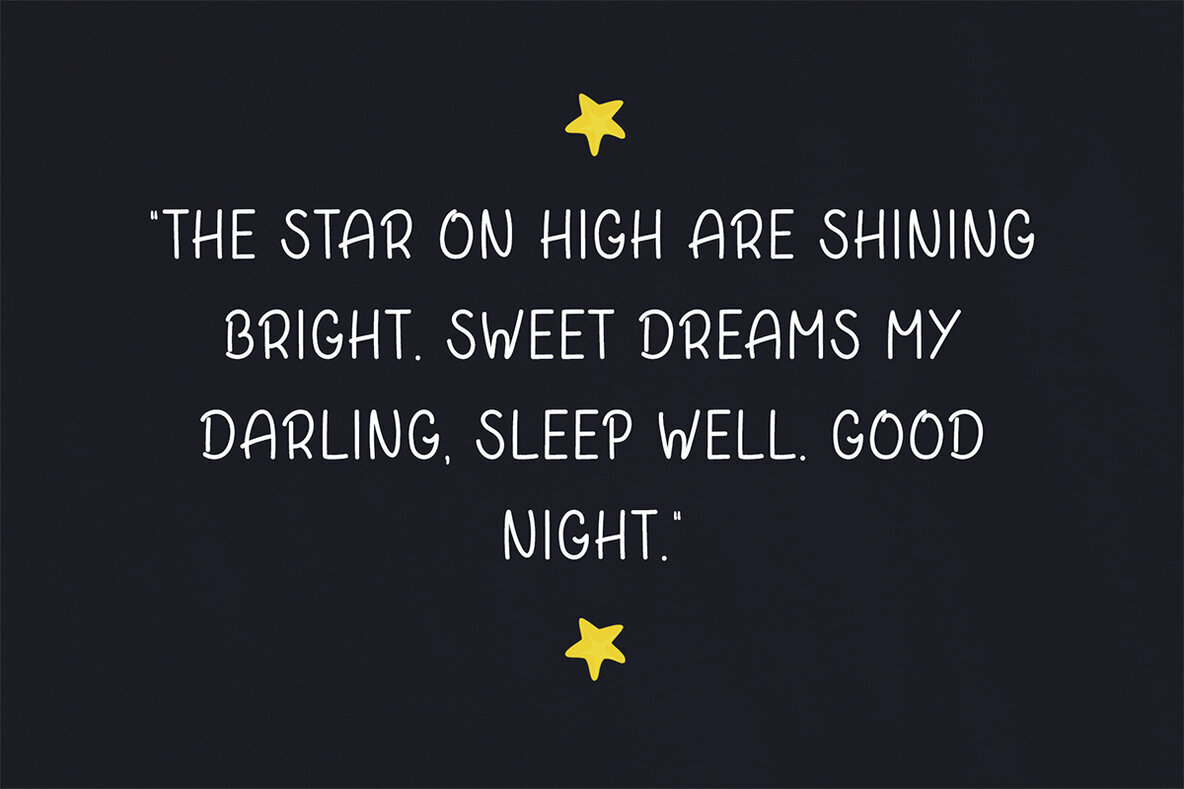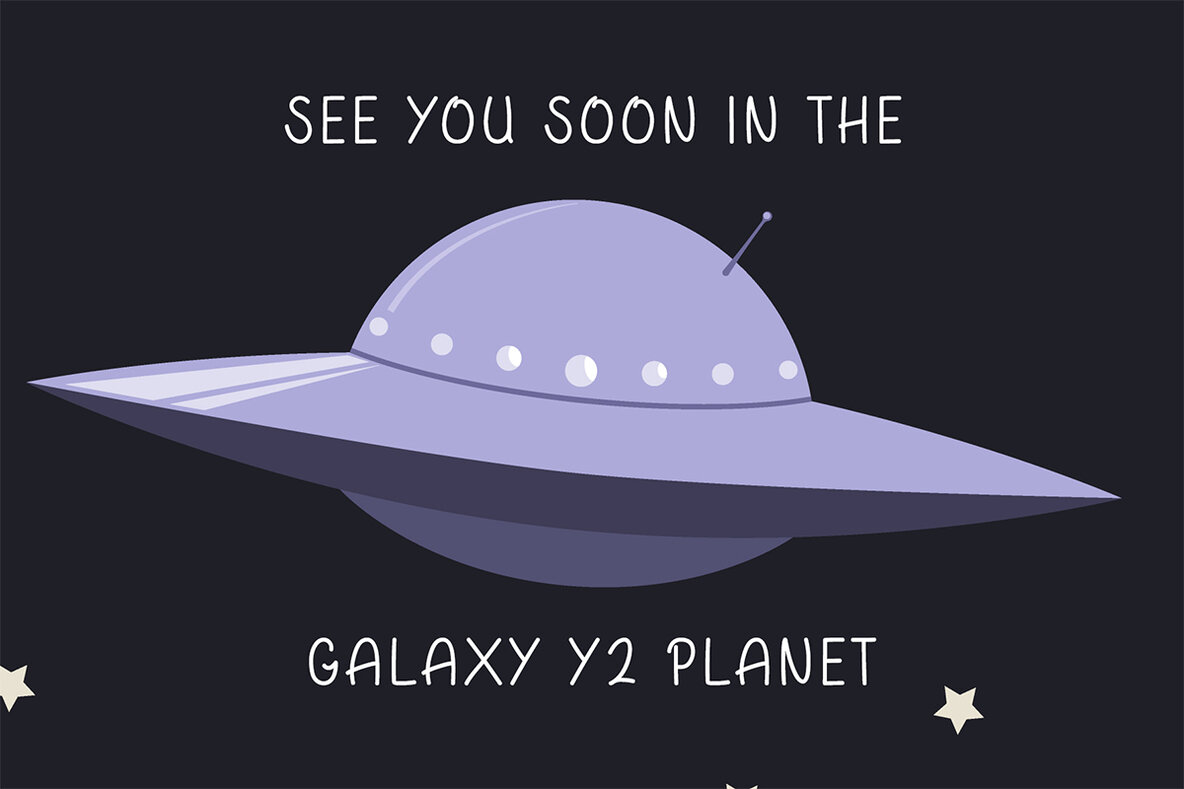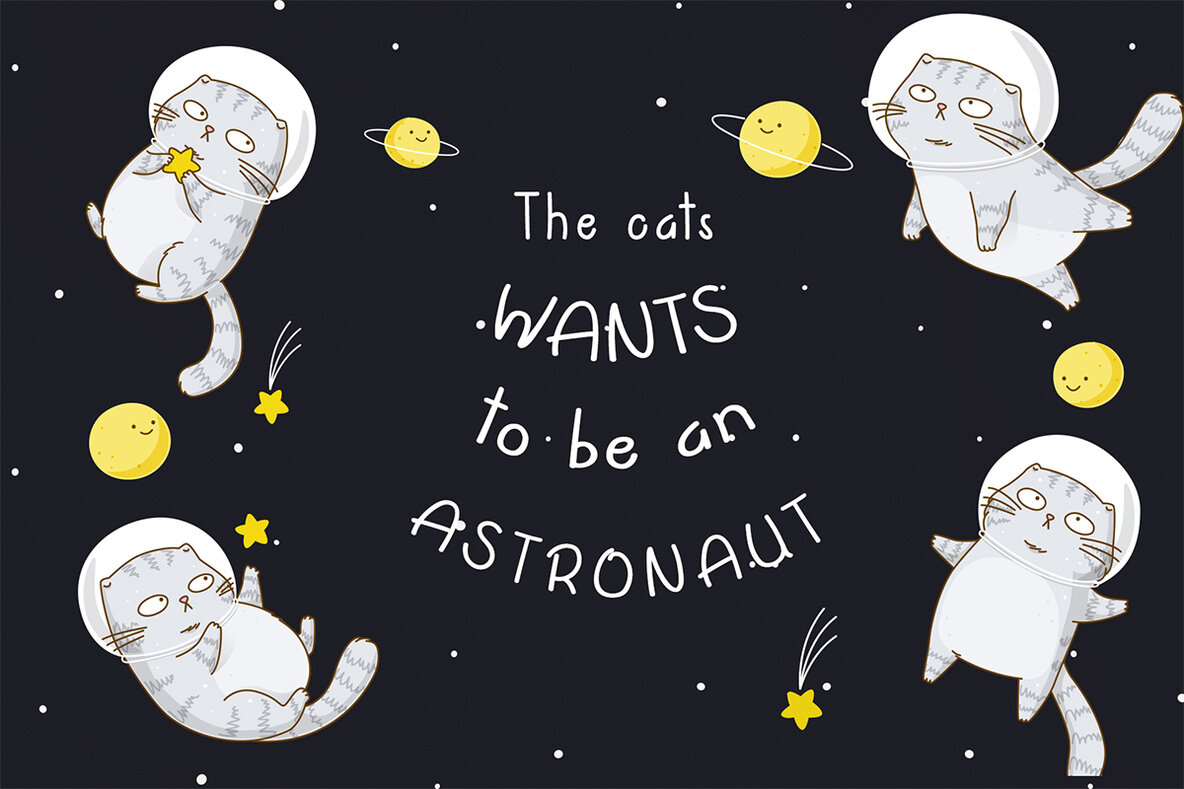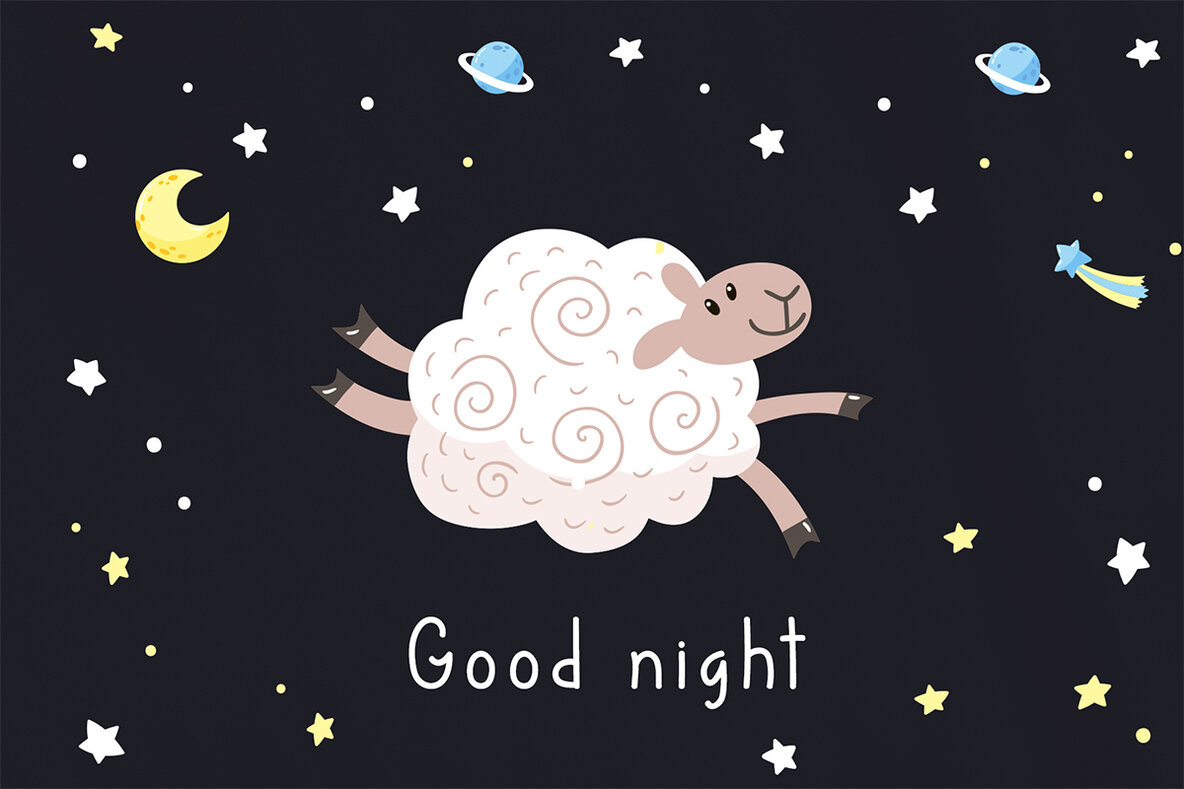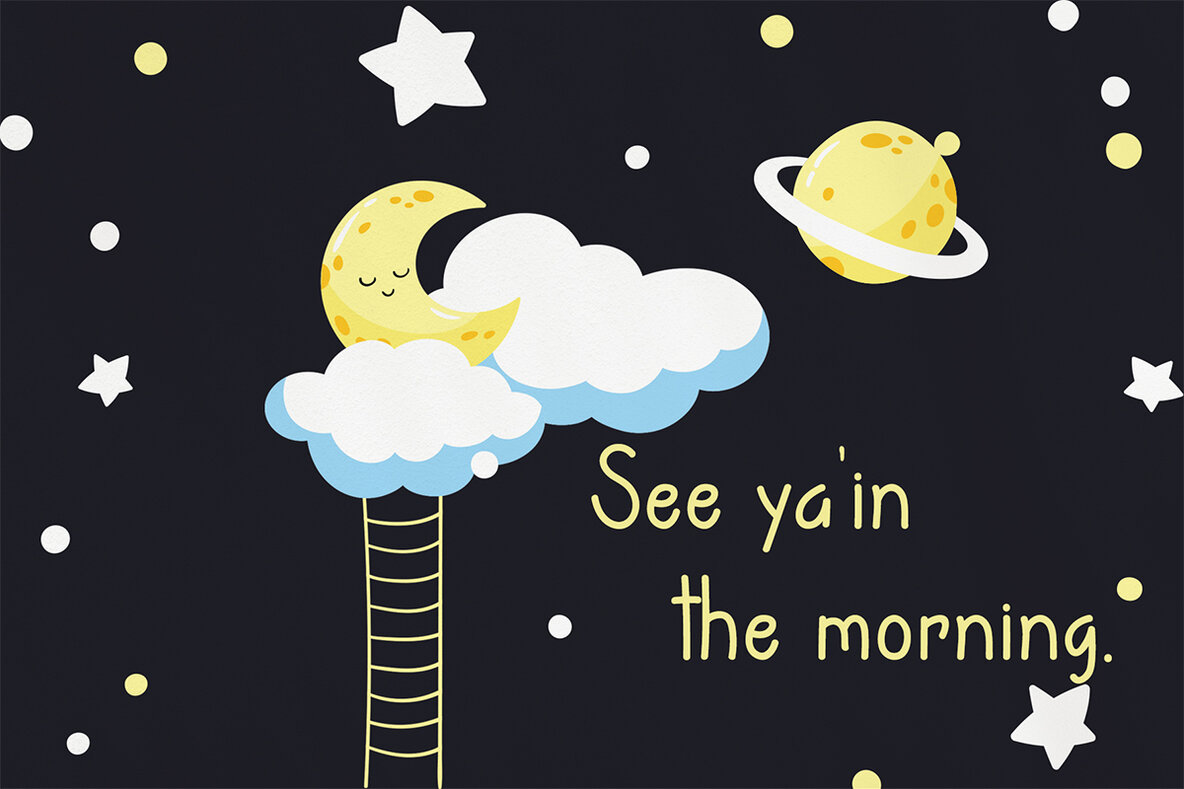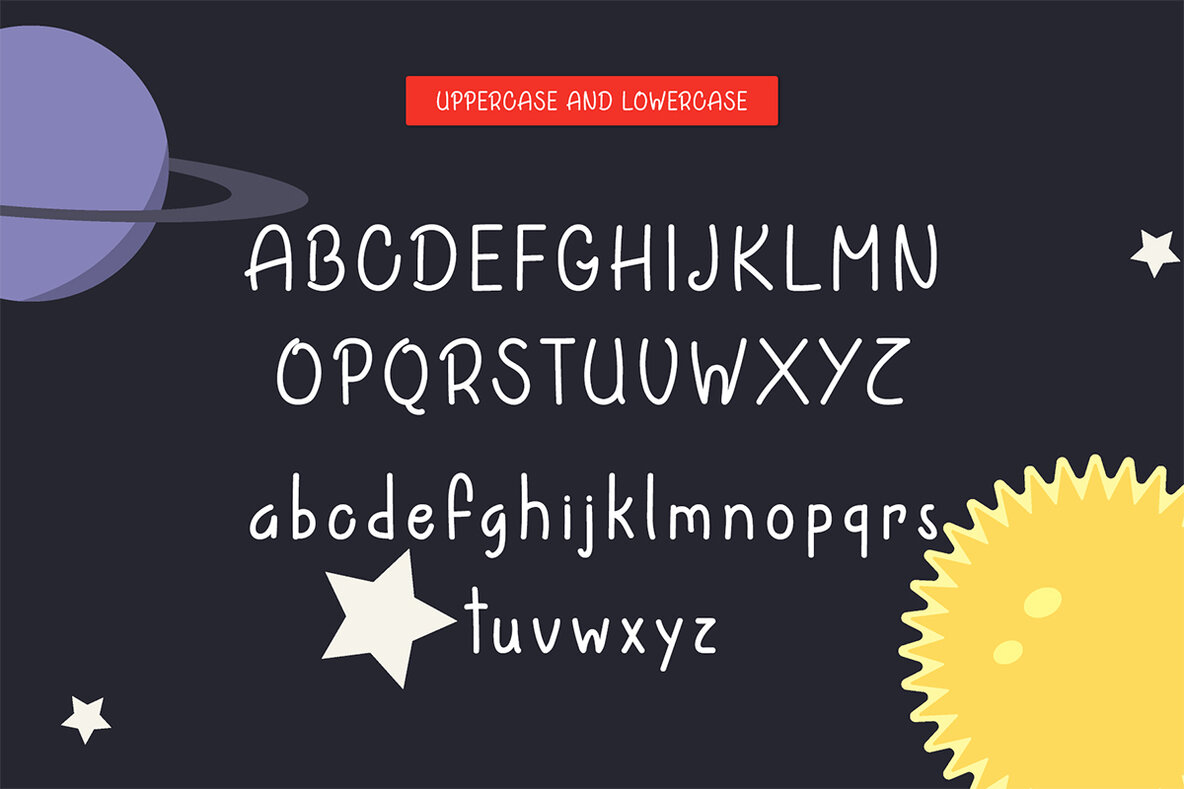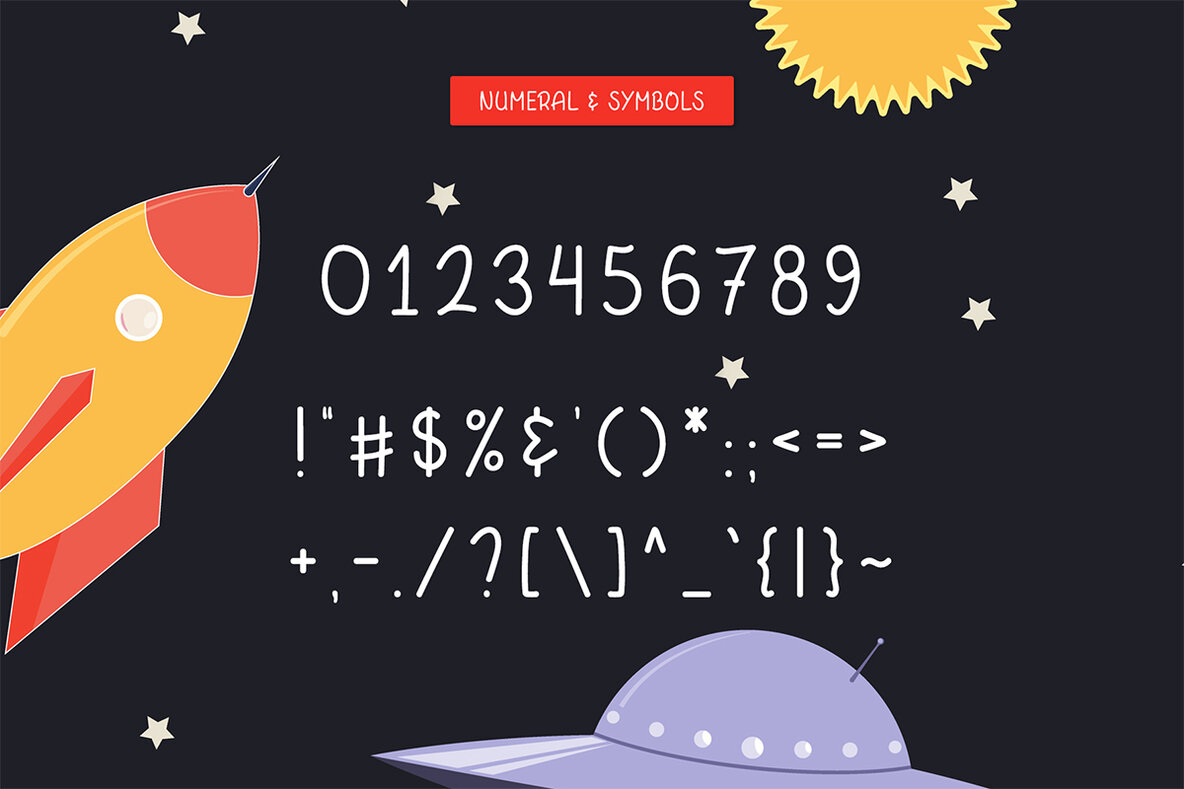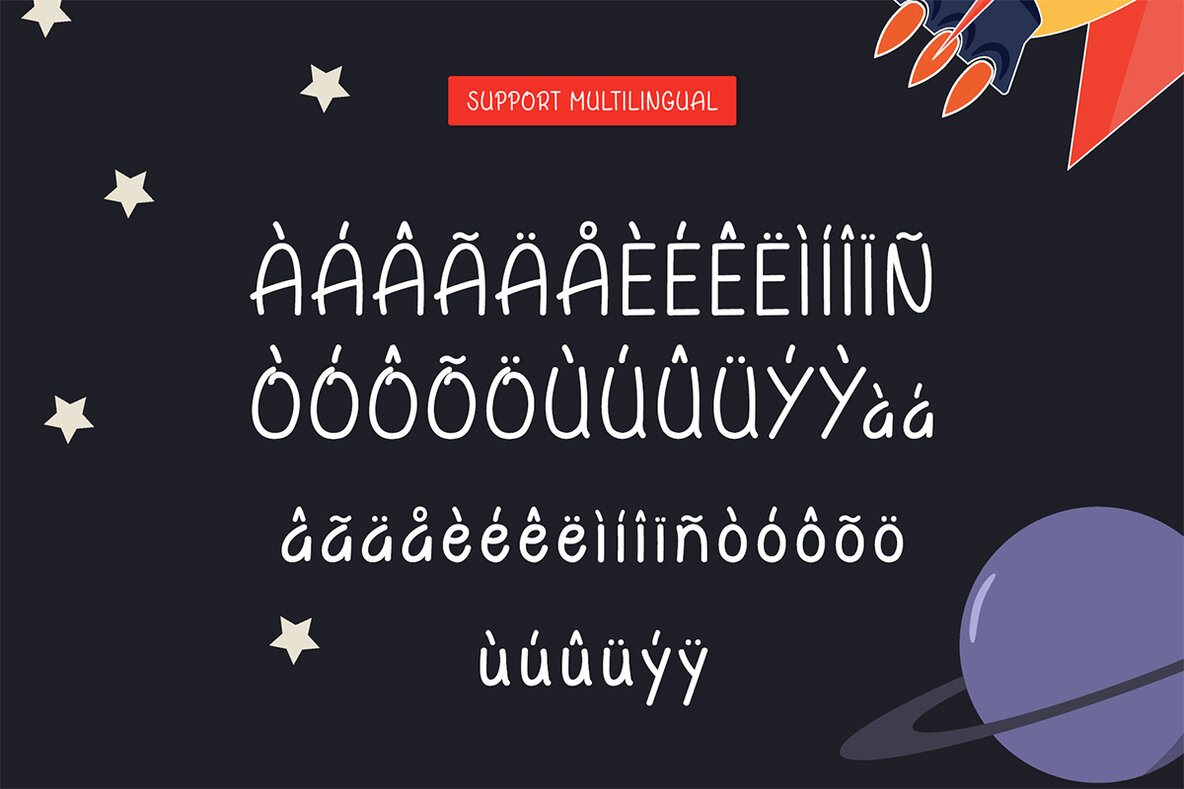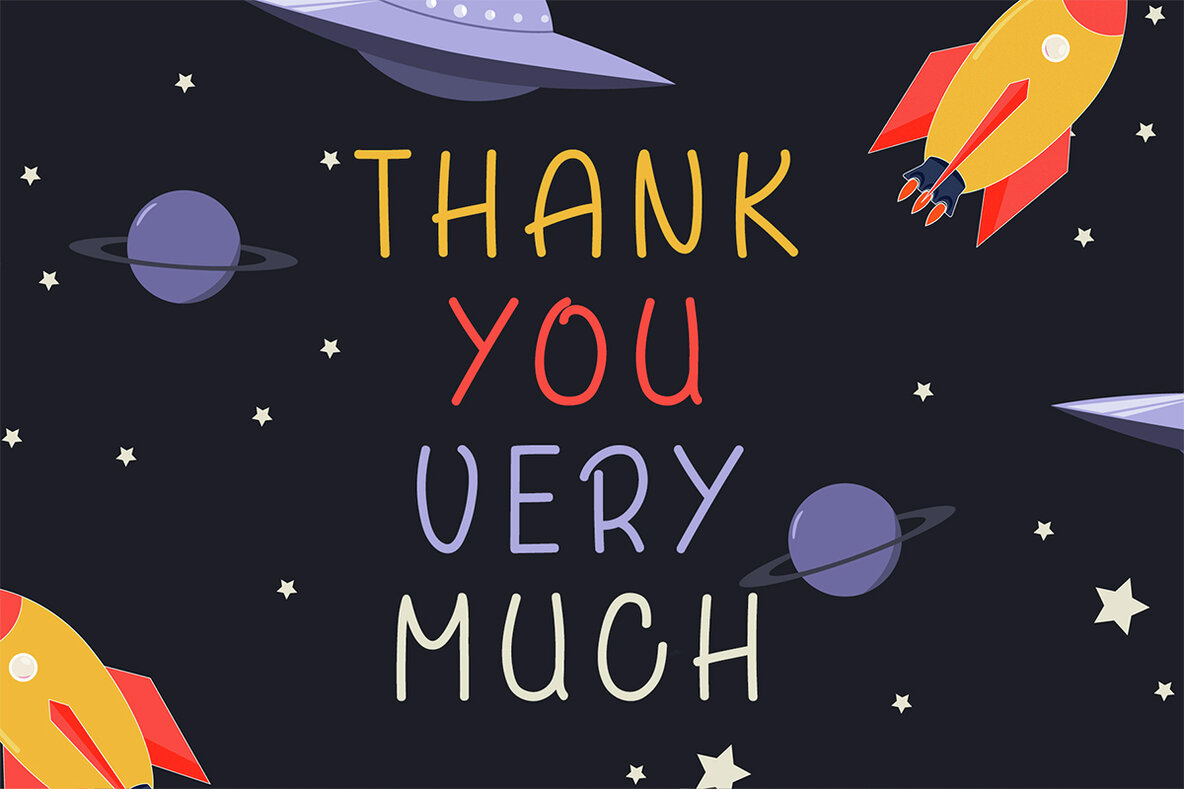
Vorrede Font
Vorrede Regular
Vorrede Handmade Font is a natural, flowing, and playful typeface perfect for infusing creativity into any project. With a comprehensive set of uppercase and lowercase letters, numbers, punctuation marks, and symbols, it supports multilingual characters, making it versatile for various tasks. Whether you're working on packaging, presentations, logos, headlines, lettering, posters, branding, quotes, titles, magazine headings, web layouts, advertising, invitations, comic artworks, or children’s party invites, Vorrede is designed to meet your needs.
This font offers a diverse range of characters including the full alphabet from A-Z, both in uppercase and lowercase, numbers from 0-9, and a variety of punctuation and special symbols. It also supports multiple languages with accented characters, making it ideal for international projects. Whether used for vibrant, playful designs or sophisticated branding materials, Vorrede Handmade Font ensures that your creative projects will stand out.